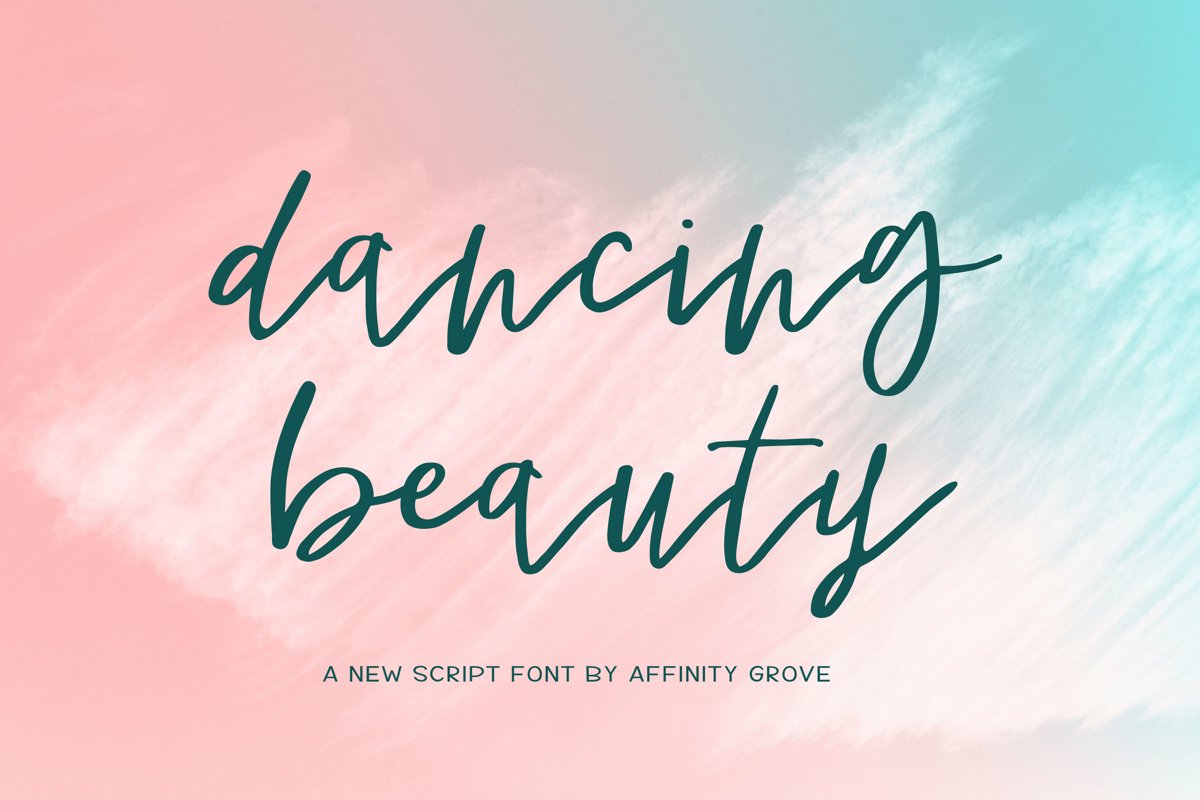
Dancing Beauty
Dancing Beauty is a hand-lettered script font that is romantic and smooth. Beautiful and graceful like a dancing beauty, you will love this new calligraphy font. Use in all your designing from save the dates, to birth announcements to wedding menus. This versatile and elegant font will transform your project from pretty to breathtaking.